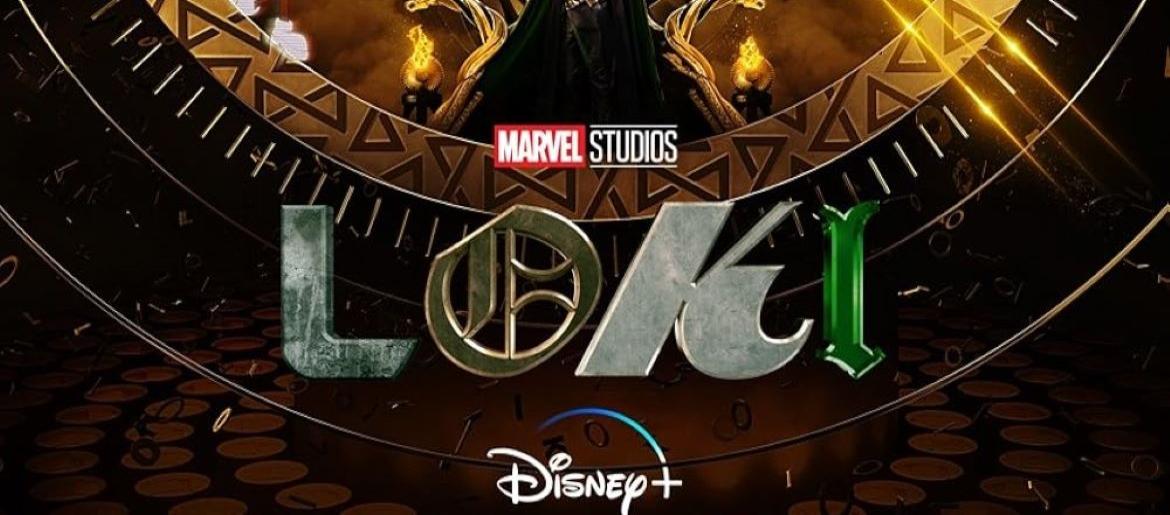
Loki Font
Loki Font perfectly captures the mischievous, regal, and slightly twisted energy of Marvel’s God of Mischief. Its elegant, curved letterforms blend mythological grandeur with modern sci-fi complexity, reflecting the series’ multiverse-hopping chaos and the TVA’s unique aesthetic.
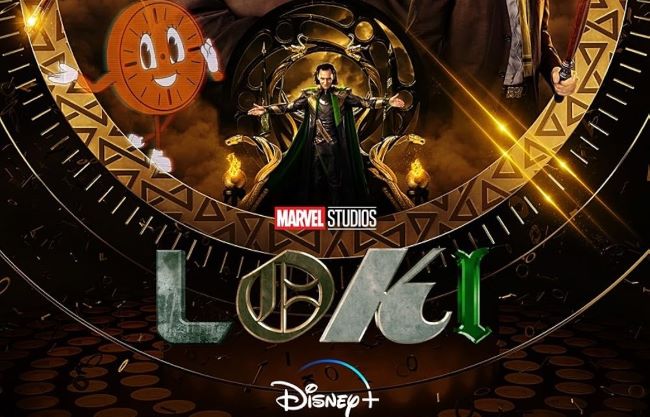
About Loki
Loki is a Marvel series that premiered in 2021 on Disney+. It follows the God of Mischief as he navigates the Time Variance Authority (TVA), exploring alternate timelines and facing consequences for his actions. The show combines superhero action, intricate storytelling, and Norse mythology with a multiverse twist.